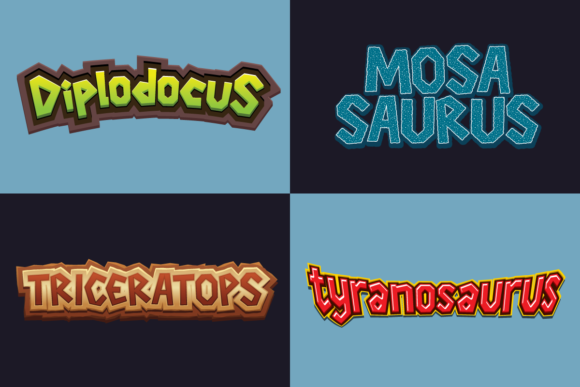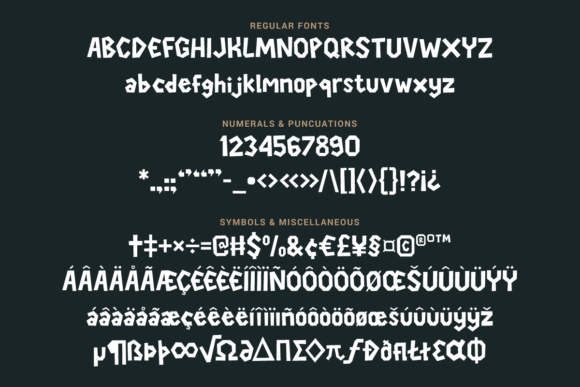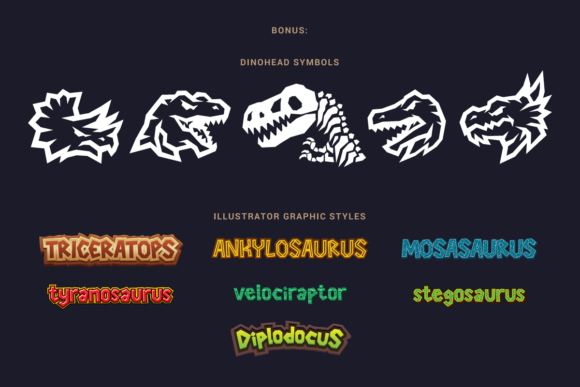
Discover the Unique Charm of Dinotype Font: A Bold Display Font for Creative Expression
In the world of typography, fonts play a crucial role in conveying messages, evoking emotions, and creating visual identities. For designers and crafters, finding the perfect font that balances aesthetics and readability can be a daunting task. However, if you’re looking for a bold display font that exudes casual charm and versatility, look no further than Dinotype Font. In this article, we’ll explore the characteristics, benefits, and uses of Dinotype Font, and why it’s becoming a favorite among designers and crafters alike.
What is Dinotype Font?
Dinotype Font is a bold display font that has been carefully handcrafted to make a statement. Its unique design combines the elegance of traditional typography with the warmth and approachability of handwritten fonts. The result is a font that appears wonderfully down-to-earth, readable, and incredibly versatile. Whether you’re looking to create eye-catching headlines, striking posters, or engaging social media graphics, Dinotype Font is the perfect choice.
The Characteristics of Dinotype Font
So, what makes Dinotype Font stand out from the rest? Here are some of its key characteristics:
• Bold and Attention-Grabbing: Dinotype Font is designed to make a statement. Its bold and sturdy design ensures that your text will stand out, even on busy backgrounds or in crowded design layouts.
• Casual Charm: Unlike traditional serif fonts, Dinotype Font has a warm and approachable feel to it. This makes it perfect for designs that require a touch of personality and whimsy.
• Readability: Despite its bold design, Dinotype Font remains highly readable, even at smaller font sizes. This makes it an excellent choice for body text, captions, and other applications where legibility is crucial.
• Versatility: Dinotype Font is an incredibly versatile font that can be used in a wide range of design contexts, from posters and flyers to social media graphics and website headers.
Benefits of Using Dinotype Font
So, why should you choose Dinotype Font for your design projects? Here are some benefits of using this unique font:
• Unique Visual Identity: Dinotype Font helps you create a distinctive visual identity that sets you apart from others. Its bold and attention-grabbing design ensures that your message will be noticed.
• Time-Saving: With Dinotype Font, you can create stunning designs in no time. Its versatility and readability mean you can use it for a wide range of applications, from headlines to body text.
• Easy to Pair: Dinotype Font pairs well with a variety of other fonts, making it easy to create harmonious and visually appealing design combinations.
Using Dinotype Font in Your Design Projects
So, how can you use Dinotype Font in your design projects? Here are some ideas to get you started:
• Posters and Flyers: Use Dinotype Font as a headline font to grab attention and draw people in.
• Social Media Graphics: Create engaging social media graphics with Dinotype Font, perfect for sharing on Instagram, Facebook, and Twitter.
• Website Headers: Use Dinotype Font to create striking website headers that set the tone for your brand.
• Branding and Packaging: Dinotype Font is perfect for creating distinctive branding and packaging designs that stand out on store shelves.
In conclusion, Dinotype Font is a bold display font that offers a unique combination of style, readability, and versatility. Its casual charm and attention-grabbing design make it perfect for a wide range of design applications, from posters and flyers to social media graphics and website headers. Whether you’re a designer, crafter, or simply someone looking for a unique font to add some personality to your designs, Dinotype Font is definitely worth checking out.